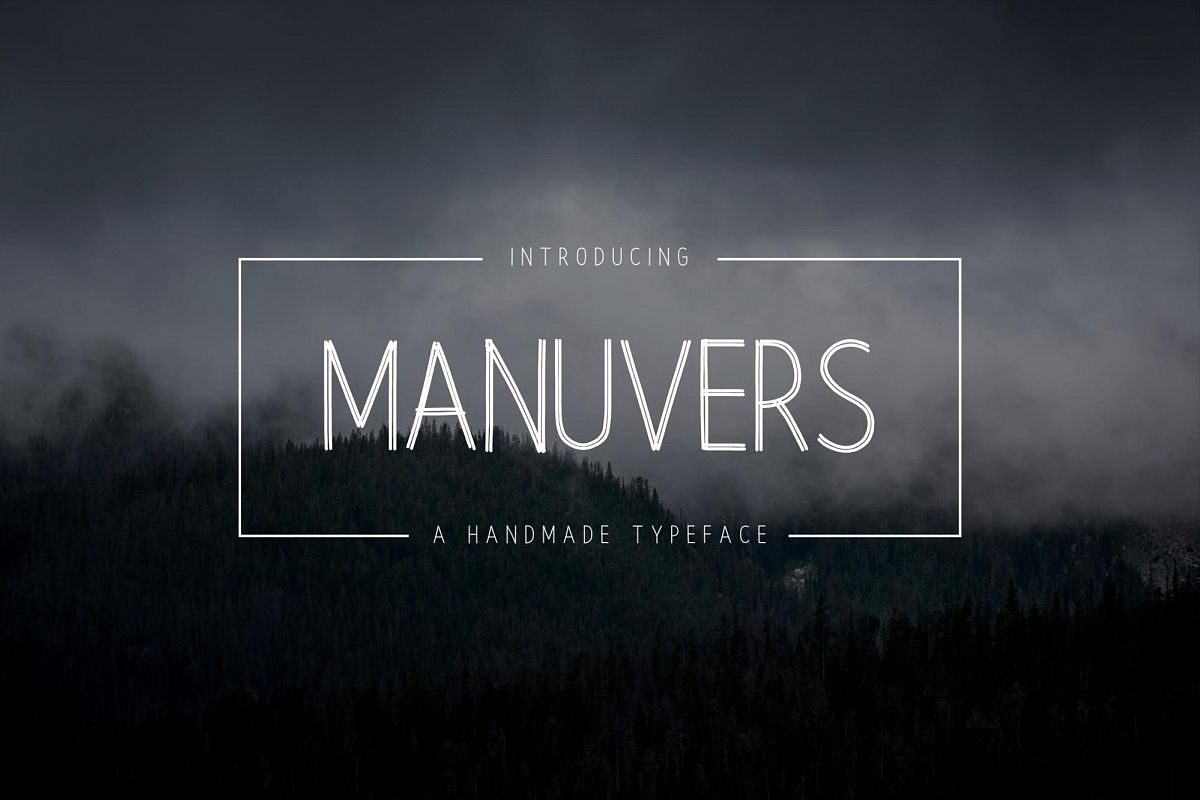
Manuvers - Handmade Sans Font -
Introducing a new handmade font with tons of cool characters, symbols, and unique styles. Manuvers Handmade Sans Font is perfect for quotes, logos, apparel, advertising, wedding invitations and packaging design.
Manuvers Features:
- Numerals & Punctuations
- International Language (Multilingual characters)